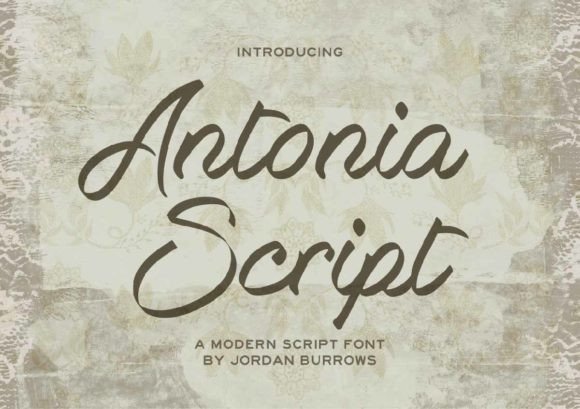
The Elegance of Antonia Script Font: A Designer’s Delight
I’ll never forget the time I was working on a wedding card design project, and my client asked for a font that exuded elegance and sophistication. I scoured the internet, trying out font after font, but nothing seemed quite right. That was until I stumbled upon Antonia Script Font. With its fluid strokes and delicate touch, it was love at first sight! In this article, I’ll share my experience with Antonia Script Font, its features, and how to make the most of it in your designs.
A Personal Review of Antonia Script Font
• ✨ Elegant and free-flowing script font with complimentary brush strokes
• ✅ Good links and connections between letters for a smooth reading experience
• 💕 Perfect for wedding cards, wall art, greeting cards, logos, and more
• 👍 Highly versatile and can be used for both digital and print designs
While Antonia Script Font is an excellent choice, there are a few things to keep in mind:
• ⚠️ Some letters may not connect perfectly, which can affect the overall flow
• 🤔 Limited availability of stylistic alternates, which may limit design options
The Story Behind Antonia Script Font
Antonia Script Font was designed with the intention of creating a beautiful, elegant script font that would be perfect for special occasions. The designer aimed to create a font that would flow smoothly and have a delicate touch, making it ideal for wedding cards, wall art, and other decorative designs.
Font Name Antonia Script Font
Author jordanburrows94
A: Antonia Script Font is best used for designs that require an elegant and delicate touch, such as wedding cards, wall art, greeting cards, and logos.
A: Yes, Antonia Script Font is highly versatile and can be used for both digital and print designs.